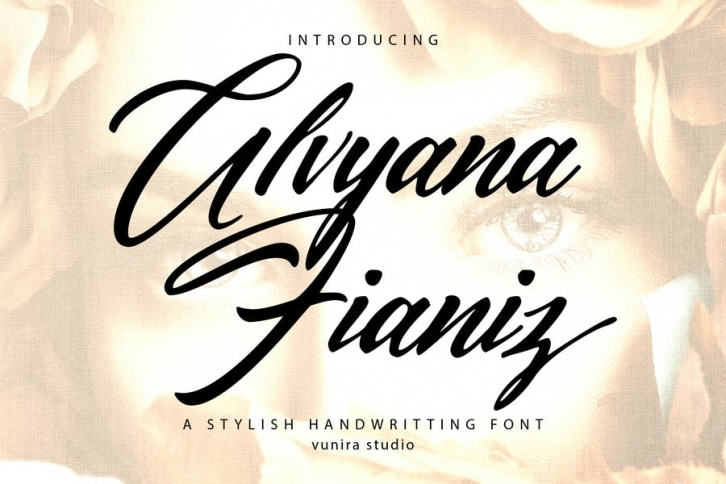
Alvyana Fianiz | A Stylsih Handwritten Font with a calligraphy style, So beautiful on invitation like greeting cards, branding materials, business cards, quotes, posters, and more!
- Alternates and Ligatures